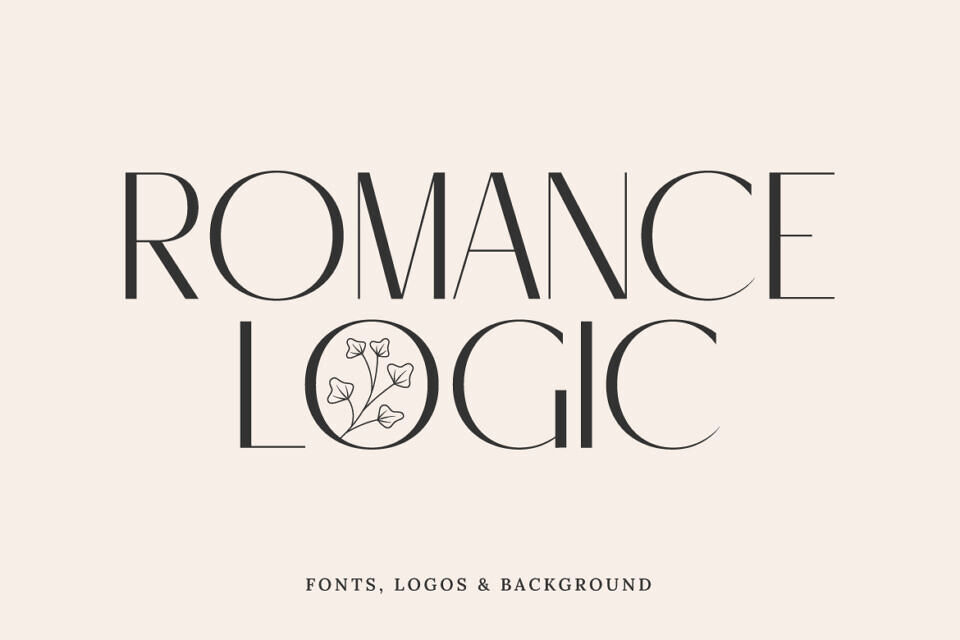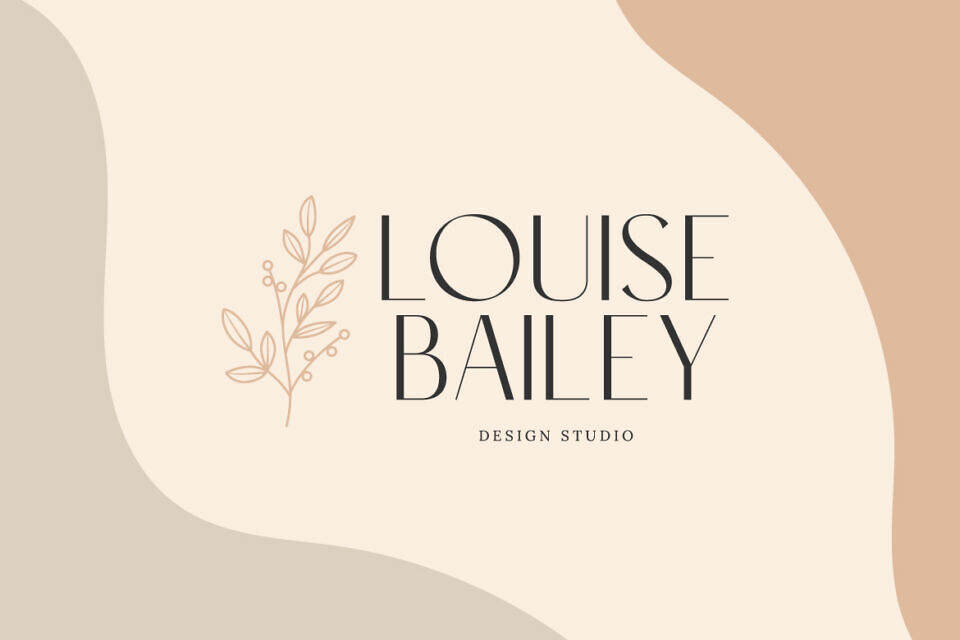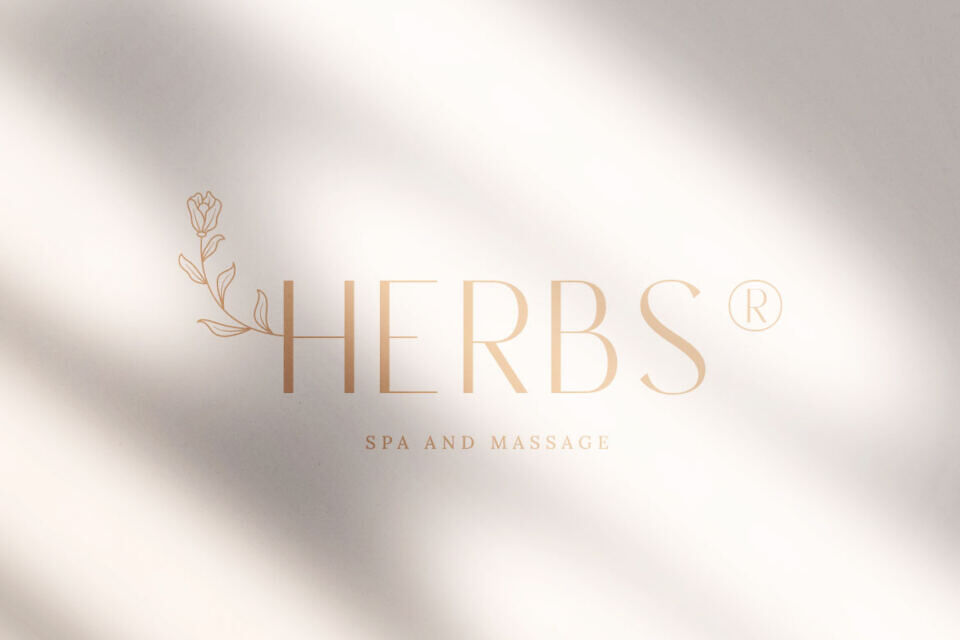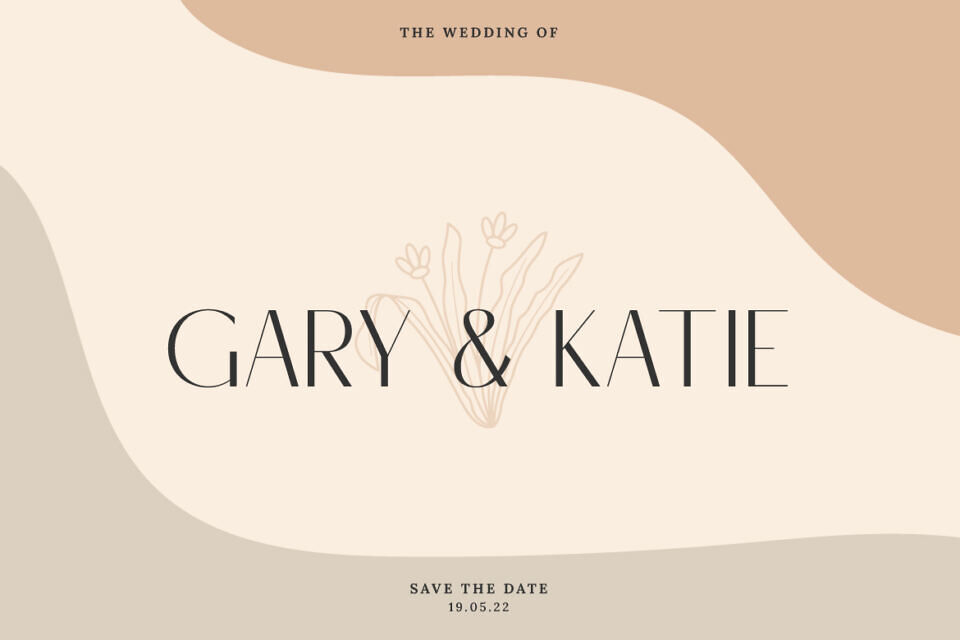
Romance Logic Font
Meet the “Romance Logic” font, an elegant and sophisticated sans serif typeface. Its distinctive lettering, with varied widths on characters like C, D, G, O, and Q, sets it apart. This is perfect for branding, logos, and creative projects, adding a touch of elegance to your designs.